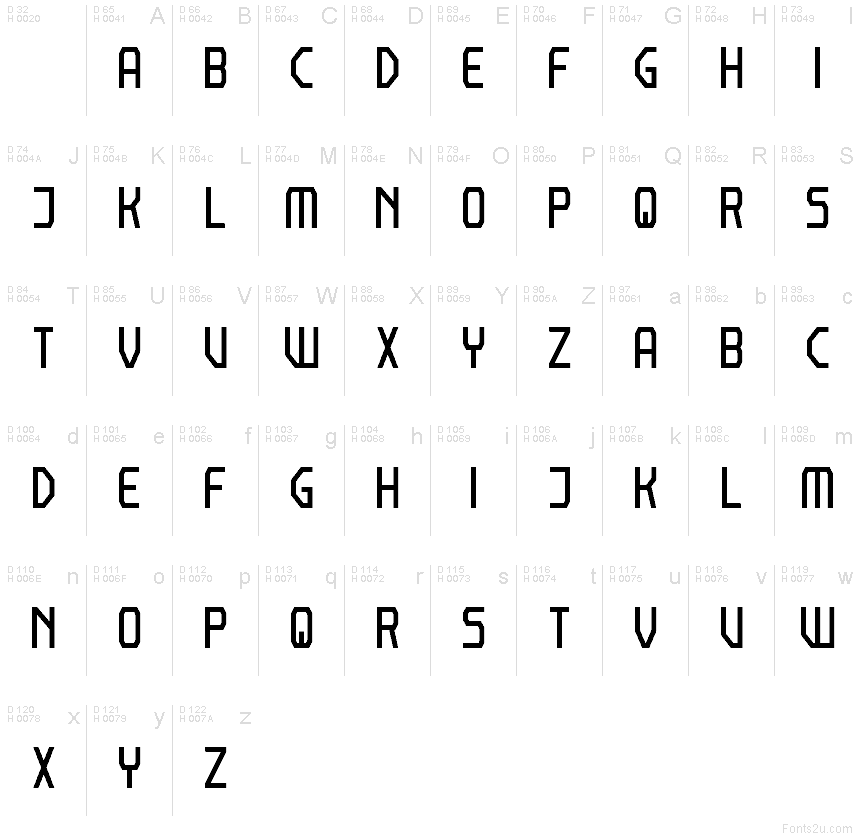
Never Ending Extravagant Regular
Never Ending Extravagant font by Vladimir Nikolic is a techno display font with a condensed width. It features irregular, geometric, and angular lines which are emphasized through the industrial look of the typeface. Digital-inspired and futuristic, this modern font presents itself in an all-caps character set that can achieve maximum attention-catching results.
The free techno display font can be used in posters, videos, games, apps, websites, online platforms interfaces, android projects on mobile devices or tablets. Other use cases extend to book covers or regular texts like titles and subheadings but not body texts. Business cards and invitations are less common options for using it.